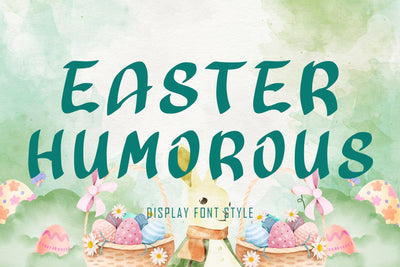
Easter Humorous
"Easter Humorous" is a unique and funny display font. This font is equipped with uppercase, lowercase, numerals, punctuations and multilingual support. Very suitable for Easter, banners, comics, branding, posters, stickers, logos, book titles, animals, kids and others.